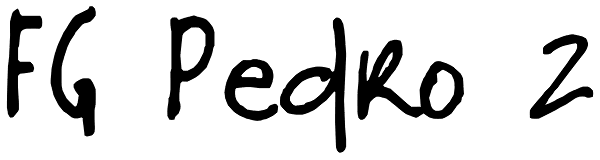
FG Pedro
FG Pedro is a new two-font set that can be used together. Exchanging characters from Pedro 1 to Pedro 2 at random will create a more realistic handwritten effect since the characters are different in the two fonts.
FG Pedro 1
FG Pedro 2